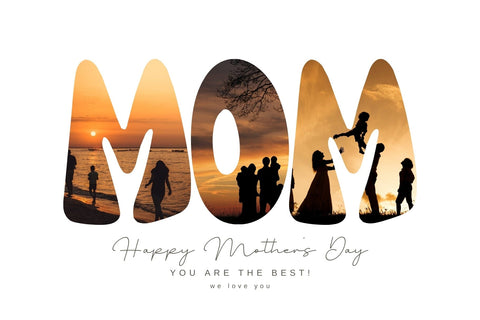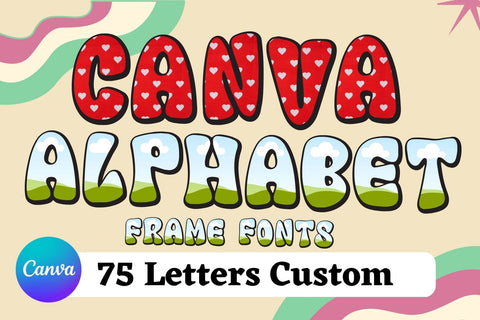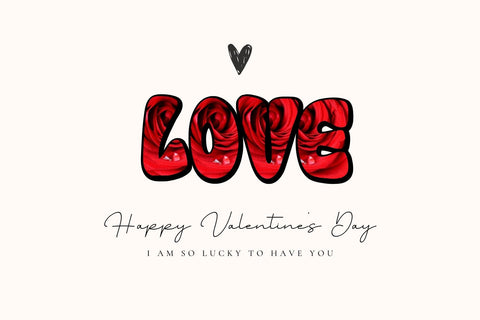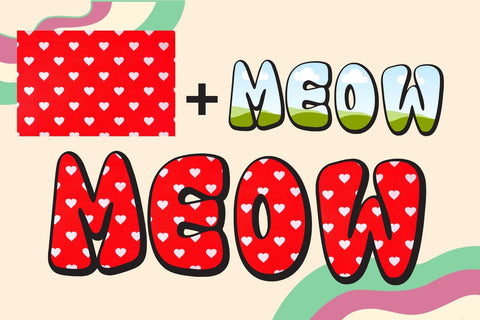
Custom Canva Alphabet Frames Fonts
Custom Canva Alphabet Frames Fonts 75 Letters Custom
Custom Canva frames in the shape of Letters so you can drag & drop pictures, videos, and digital paper/images into the frames. This can be used in both the free and pro version of Canva. you can use the image to create a variety of Canva designs or download them to your computer and use them in other designs